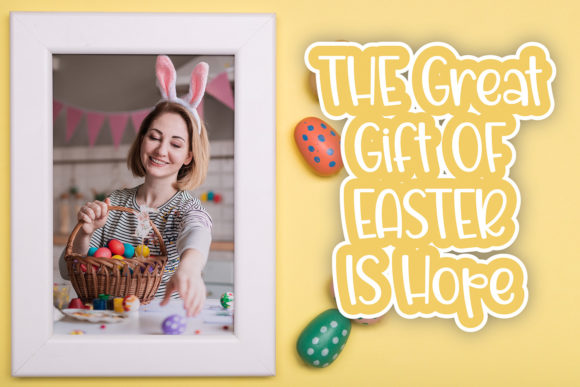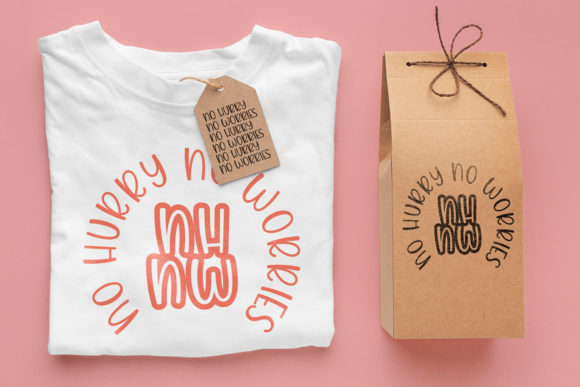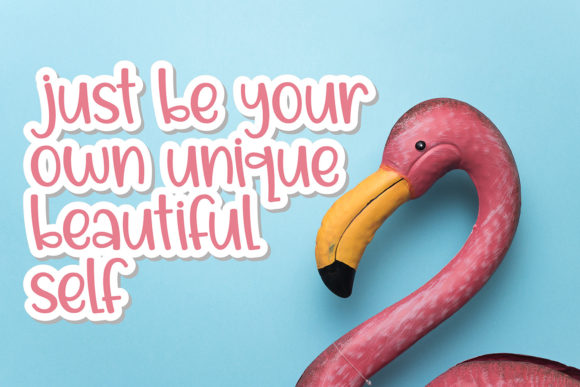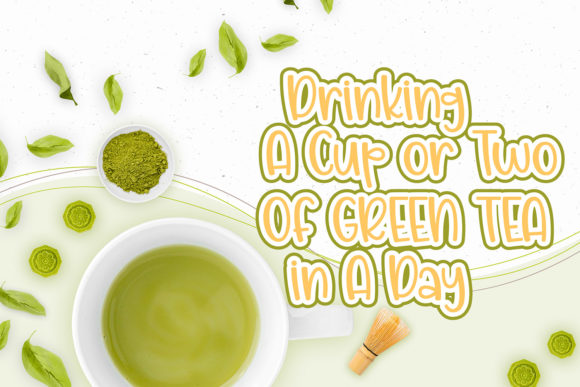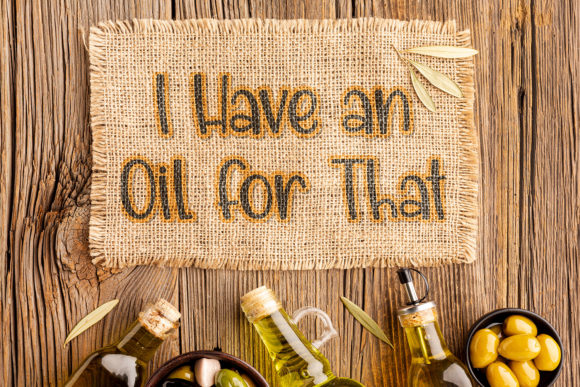
Introducing Fly to Rise Font: Elevate Your Creations with a Relaxed, Friendly, and Neat Handwritten Style
In the world of typography, the right font can make all the difference in elevating your designs and crafts to the next level. If you’re on the hunt for a font that exudes a sense of relaxation, friendliness, and neatness, look no further than Fly to Rise Font. This beautiful, handwritten font is perfect for designers and crafters looking to add a personal touch to their creations. In this article, we’ll dive into the features and benefits of Fly to Rise Font and explore how it can become a valuable asset to your font library.
The Characteristics of Fly to Rise Font
Fly to Rise Font is a relaxed, friendly, and neat handwritten font that boasts a unique and charming personality. Its casual, effortless vibe makes it perfect for a wide range of projects, from creative crafts to digital designs. The font’s neat and organized structure ensures that it remains legible and easy to read, even at smaller sizes. This versatility makes Fly to Rise Font an excellent choice for various applications, including:
- Digital designs (social media graphics, blog posts, and website headers)
- Creative crafts (handmade cards, scrapbooking, and DIY projects)
- Marketing materials (brochures, flyers, and business cards)
- Artistic expressions (illustrations, paintings, and mixed media art)
The Benefits of Using Fly to Rise Font
So, what sets Fly to Rise Font apart from other fonts in your library? Here are just a few benefits of incorporating this lovely font into your designs:
- Enhances creativity: Fly to Rise Font’s unique and playful style can inspire your creative process and add a fresh perspective to your projects.
- Conveys friendliness: The font’s warm and approachable tone helps establish a connection with your audience, making it perfect for projects that require a personal touch.
- Versatile and adaptable: Fly to Rise Font works well in various contexts, from digital designs to handmade crafts, and can be easily paired with other fonts to create stunning combinations.
- Eases readability: The font’s neat structure and clear letterforms ensure that your text remains easy to read, even at smaller sizes.
How to Use Fly to Rise Font in Your Designs
Ready to incorporate Fly to Rise Font into your projects? Here are some tips to get you started:
- Pair it with bold fonts: Combine Fly to Rise Font with bold, contrasting fonts to create visually appealing headlines and titles.
- Experiment with colors: Try pairing the font with bright, playful colors to enhance its friendly and relaxed vibe.
- Use it for body text: Fly to Rise Font’s readability makes it an excellent choice for body text, especially in digital designs and marketing materials.
- Add a personal touch: Use the font to add a handwritten or personal element to your designs, such as in illustrations, quotes, or captions.
Fly to Rise Font is a beautiful, relaxed, friendly, and neat handwritten font that has the potential to elevate your designs and crafts. Its versatility, readability, and charming personality make it an excellent addition to any font library. Whether you’re a designer, crafter, or artist, Fly to Rise Font is sure to become a valuable asset in your creative process. So why not give it a try and see how it can enhance your next project?
In conclusion, Fly to Rise Font is a wonderful asset to have in your font library, and its unique characteristics make it perfect for a wide range of projects. With its relaxed, friendly, and neat style, this font is sure to inspire your creativity and help you create stunning designs that stand out from the crowd.